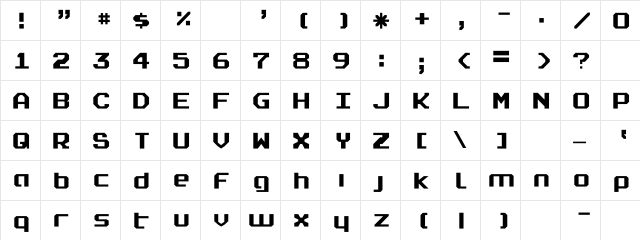
Realpolitik Regular
Design Context for Realpolitik Typeface
Realpolitik is a composed and adaptable typeface that performs quietly and consistently across a wide range of design contexts.